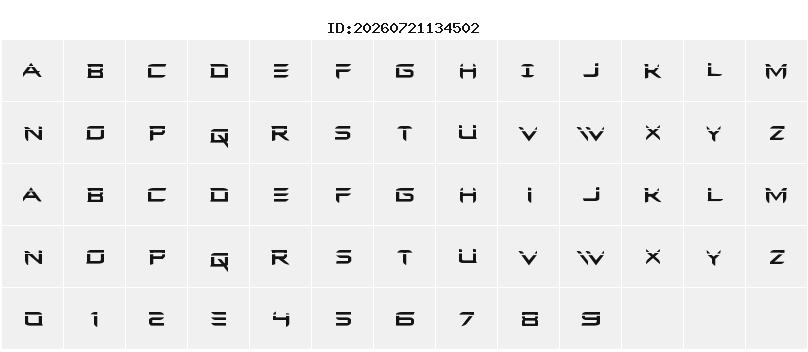
About Ferret Face Laser.ttf
Ferret Face Laser.ttf is a modern, elegant sans-serif font designed for ultimate readability and visual harmony. Perfect for branding, headlines, web design, and print materials.